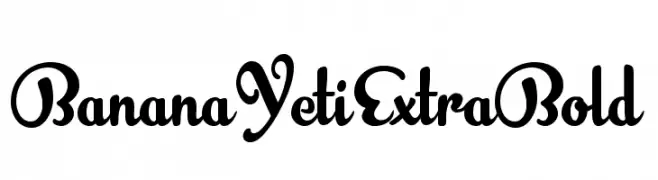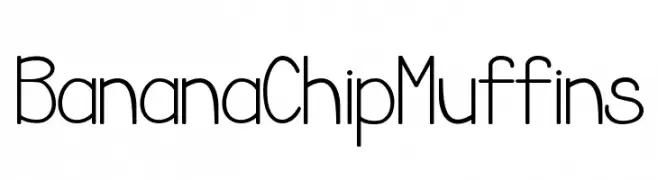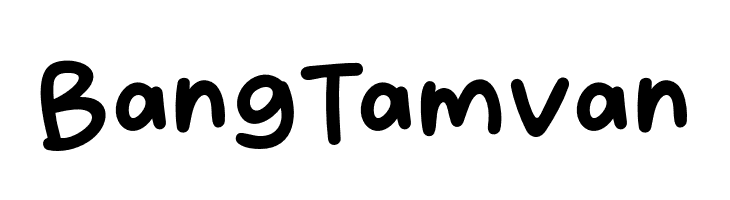
A playful, bold font with rounded, thick strokes and a friendly appearance.
A playful, bold typeface with rounded strokes and a hand-drawn feel.
A bold, playful font with rounded, bubbly characters perfect for fun, creative projects.
A playful, hand-drawn font with a whimsical and informal style.
A bold and playful script font with dynamic, flowing strokes.
A bold, geometric font with sharp angles and block-like shapes.
A modern, playful sans-serif font with rounded edges and consistent stroke width.
A bold, playful font with bubbly, irregular shapes and whimsical cutouts.
A playful, casual handwritten font with smooth, rounded edges.